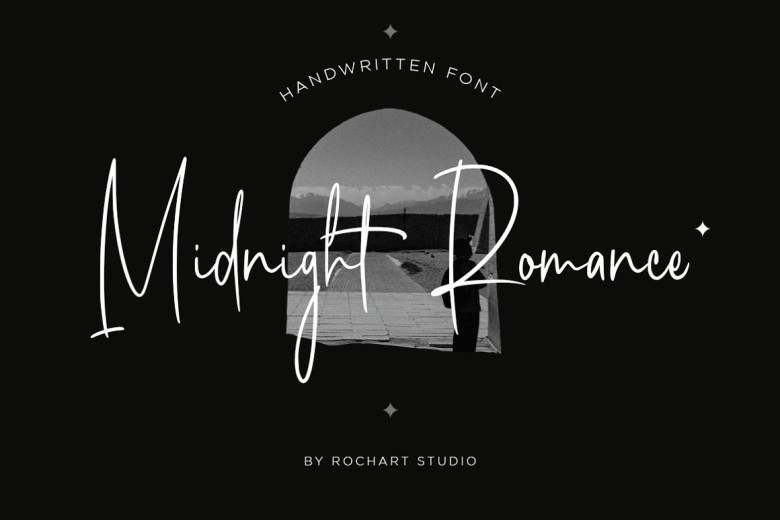
Midnight Romance Font
Midnight Romance is a beautiful handwritten font, designed using an elegant and romantic script ideal for personal touch designs including merchandise, signboards, greeting cards, wedding invitations, and other personal projects.
Midnight Romance presents cursive strokes — that make this font looks like naturally handwritten. The cerative look is beautiful, soft, chic, and unique. It’s a perfect fit for any personal design that requires a handwritten feel.
The letters are designed with delicate details that emphasize the overall look and feel being soft and delicate, suitable for a design that requires a little touch of modern elegance.
Midnight Romance Handwritten Script Font